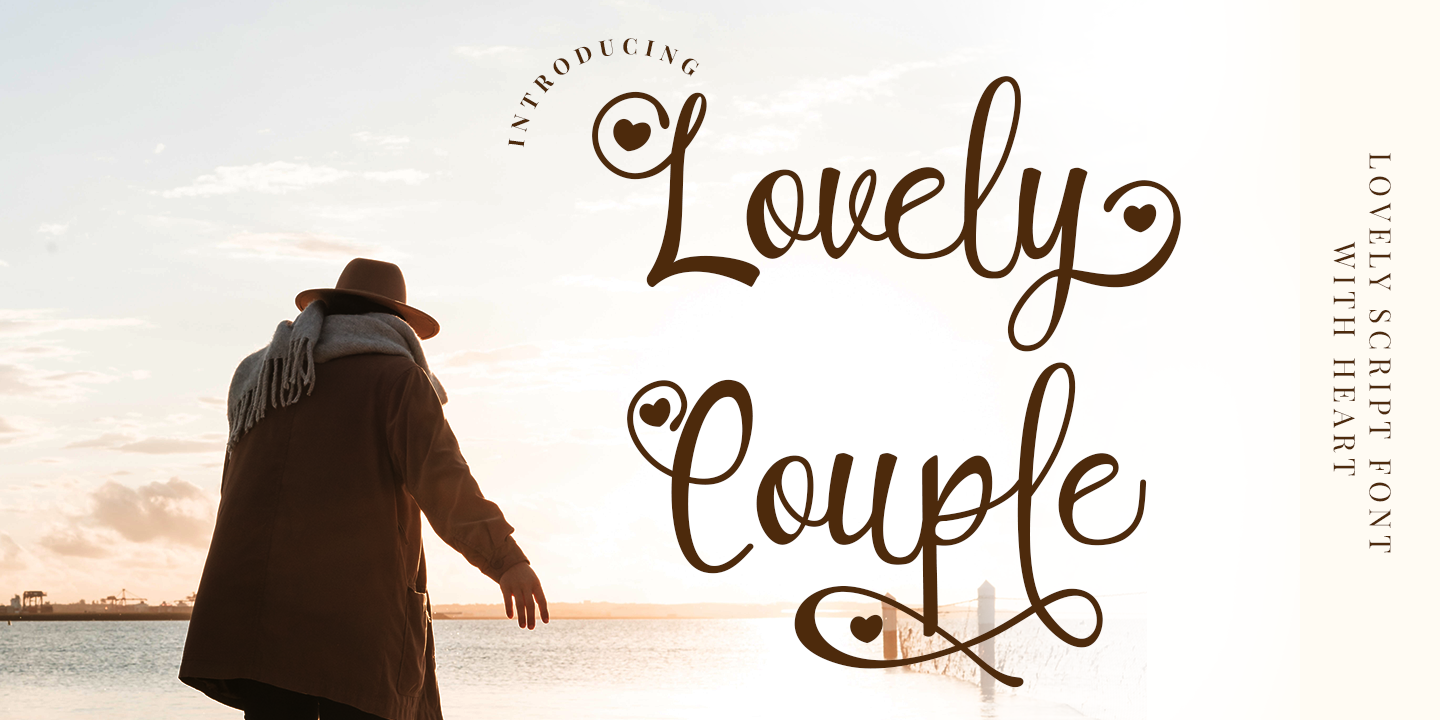
Lovely Couple Font excels in romantic design applications including wedding invitation suites, anniversary celebration materials, couple's photography branding, romantic restaurant signage, Valentine's Day campaigns, engagement party stationery, love-themed greeting cards, intimate venue decorations, relationship counseling materials, and romantic getaway promotions. This affectionate typeface brings heartfelt warmth to love-centered design projects.
What makes Lovely Couple Font truly exciting is its perfect expression of romantic connection with complementary letterforms that suggest two hearts beating as one through harmonious design elements. The font features gentle curves and loving details that create visual harmony and emotional resonance while maintaining elegant readability. Its romantic spirit and partnership symbolism make it ideal for brands celebrating love relationships, romantic occasions, and audiences who cherish deep emotional connections, meaningful partnerships, and the beautiful journey of shared love experiences.
The Lovely Couple Font family typically includes Regular weight with potential decorative hearts and romantic flourishes that enhance its loving character. These heartwarming options provide designers with complete romantic styling while maintaining the font's distinctive partnership elegance and intimate presentation across various love-focused applications and relationship contexts.
Whether you're developing wedding industry branding, creating romantic event materials, or designing love-themed campaigns, Lovely Couple Font Free Download delivers the romantic authority and heartfelt sophistication that partnership-focused projects require. Its exceptional tenderness and loving appeal make it invaluable for designers working with wedding planners, romantic venues, and relationship-centered businesses requiring typography that celebrates true love, emotional connection, and the beautiful bond between couples who choose to share life's most precious moments together in harmony and devotion.